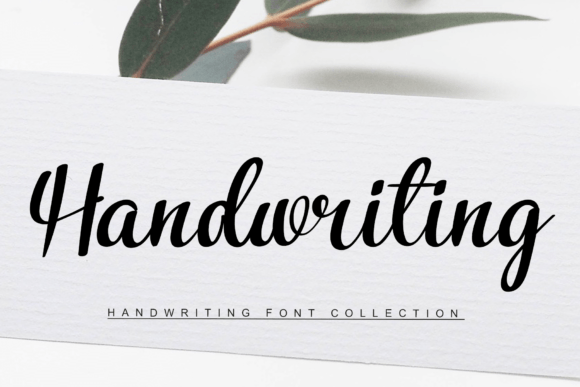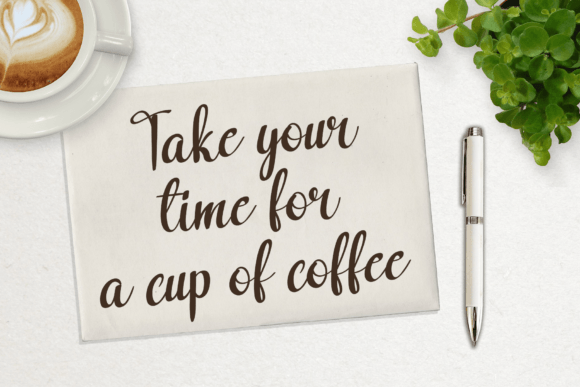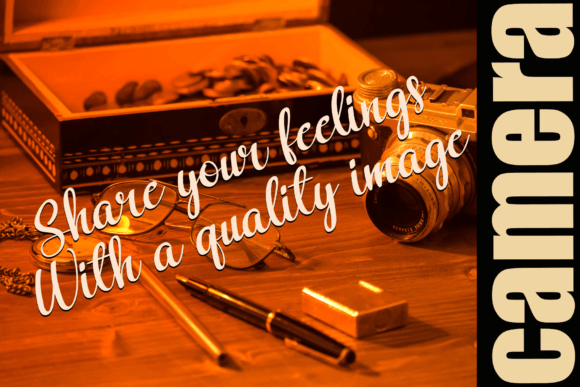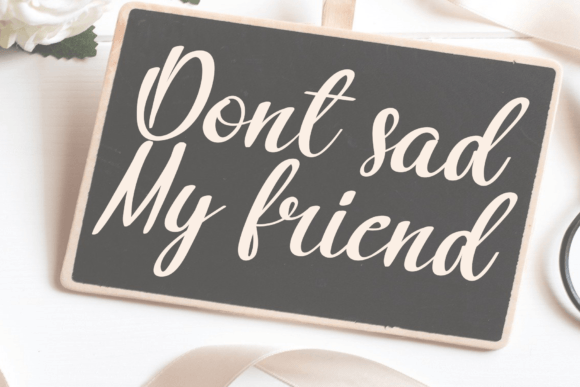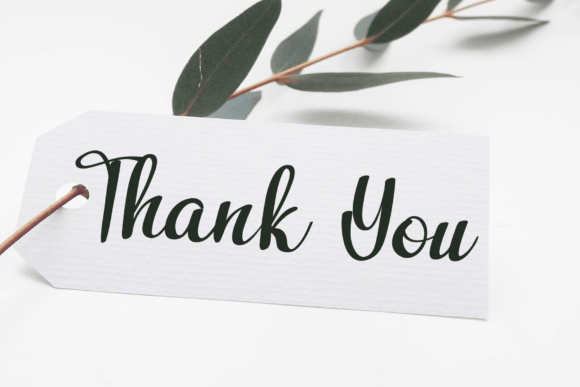
Handwriting Font
About Handwriting Font
Handwriting is a stylish handwritten font that exudes a contemporary atmosphere and impeccable form, drawing inspiration from the timeless classic calligraphy. With a balanced and varied design, this font was carefully crafted to enhance the beauty of your projects, adding a touch of elegance and sophistication.
The contemporary style of Handwriting makes it a versatile choice for a variety of design applications. Its clean and well-defined form ensures readability while maintaining a sense of modernity. This font is particularly suitable for projects that demand a stylish and refined aesthetic.
Whether used in print or digital media, Handwriting brings a level of sophistication to your designs. It complements a range of contexts, from formal invitations and business materials to creative projects where an elegant and stylish touch is desired.
In summary, Handwriting is not just a font; it’s a design element crafted to elevate the beauty of your projects. Its contemporary atmosphere, combined with impeccable form, makes it an excellent choice for designers seeking a stylish handwritten font that adds a touch of timeless elegance to a variety of creative endeavors.